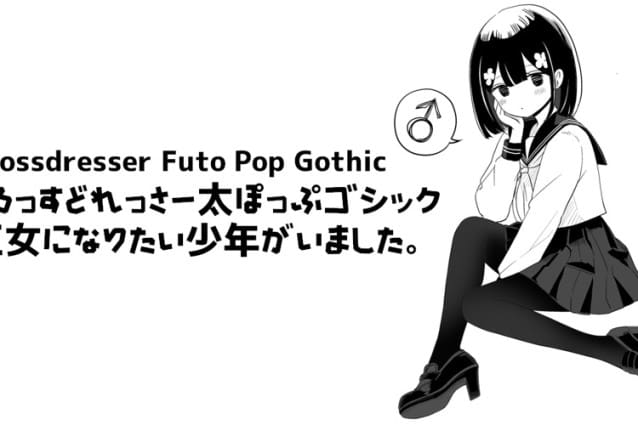
Crossdresser Futo Pop Gothic Font
Crossdresser Futo Pop Gothic Font. This Japanese pop-style font is not like the others, the hiragana characters are angular and blocky whilst the katakana characters are curvy and rounded (albeit square-ended) as if they switched the characteristics of the Japanese kana syllabaries. The kanji and Latin alphabets are derived from M+ 1c font.